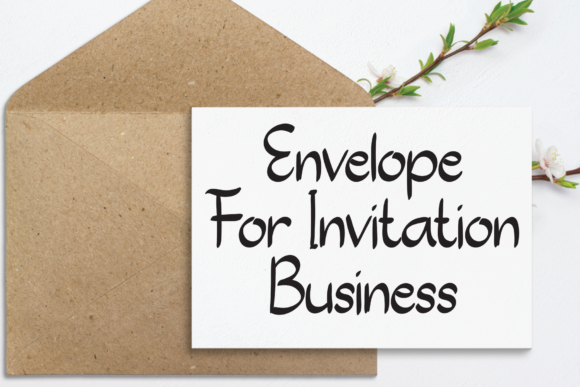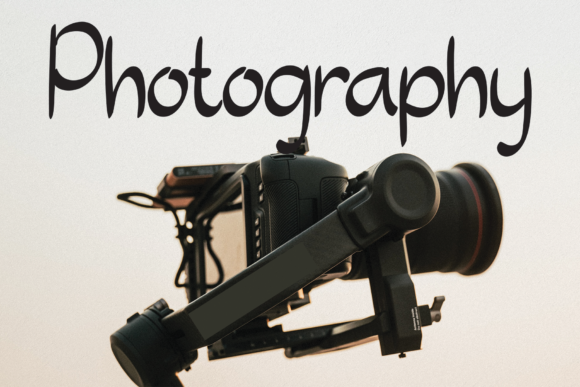
Smart Font
db-ku.com - Script & Handwritten -- Smart is a beautiful and neat handwritten font, perfect for making your designs stand out from the rest. The characters are perfect for wall hangings, wedding invitations, social media post logos, advertisements, product packaging, product designs, labels, photography, watermarks, invitations, stationery and any project that requires modern typography.